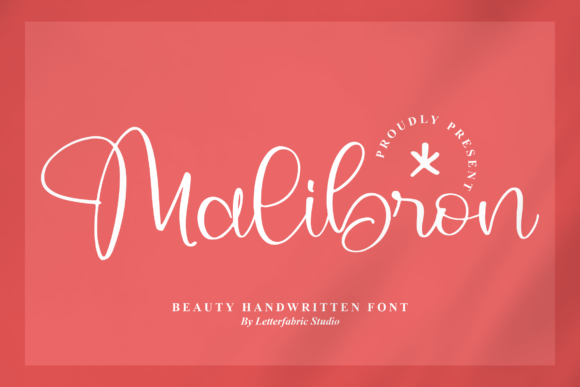
Journey into the world of Malibron, a script font family that dances with sweetness and elegance, adding a touch of joy and romance to every design. Created by the talented Letterfabric, this beautiful cursive font will enchant you with its delicate strokes and flowing lines.
Dive into a world of possibilities with Malibron. Its versatile nature makes it a perfect fit for branding, creating logos that exude sophistication and charm. Design wedding invitations, greeting cards, and marketing promotions that resonate with love and warmth. Unleash your creativity in the realm of fashion and lookbooks, crafting designs that ooze elegance and grace.
With Malibron, your designs will captivate and inspire. Its carefully crafted letters and harmonious flow will elevate your projects, leaving a lasting impression on your audience. Whether you seek a logo that radiates professionalism, a wedding invitation suite that whispers romance, or marketing materials that speak volumes, Malibron is your perfect companion.